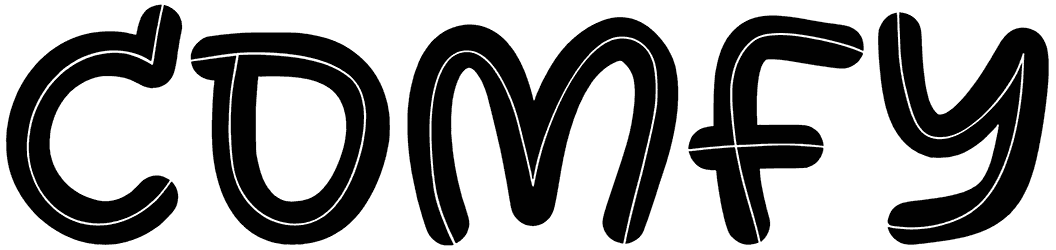
Comfy Font
The comic design of Comfy might have limited its function only to designs targeting kids, but you owe it to their organic touch how versatile it is now. Maybe that’s all thanks to it being an inline font that everything feels like summer in a design customized with Comfy.
Branding your juice boxes or labeling your other fresh products will no longer be a problem with this amusing handwritten font. Just keep in mind that numbers and lowercase letters are missing.